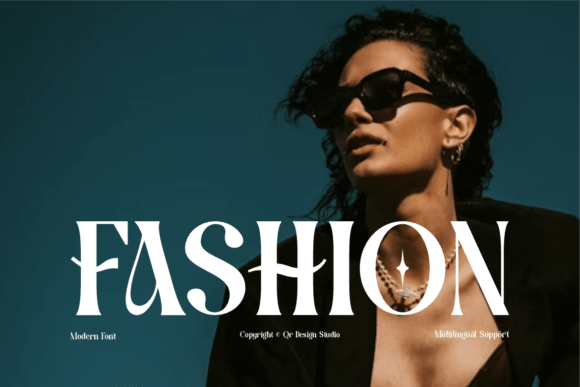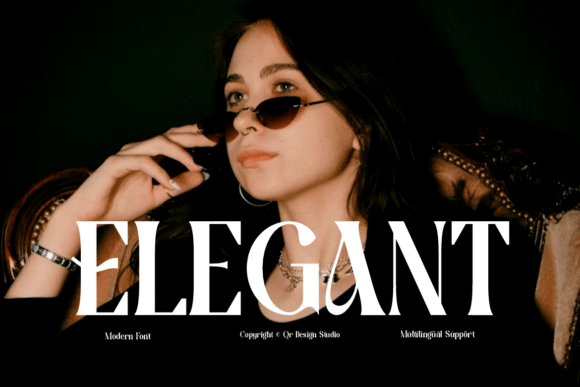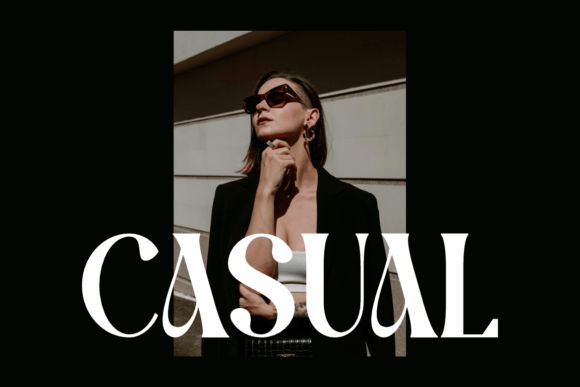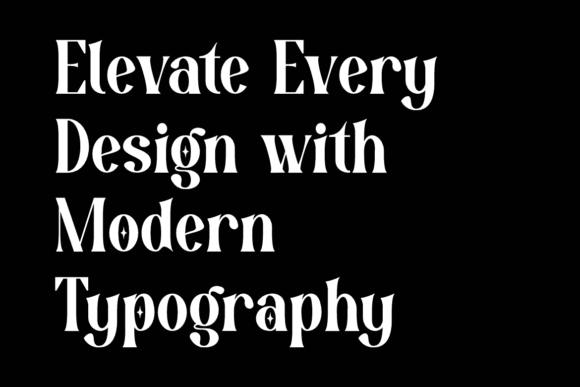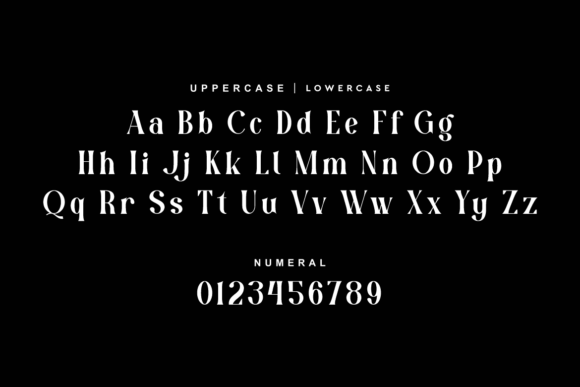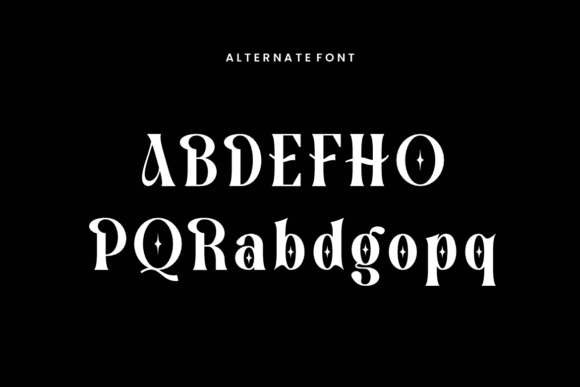
Introduction to Ostir Agobelt Font
Command attention with the sophisticated elegance of Ostir Agobelt, a modern serif font.
This typeface features a captivating blend of high-contrast strokes and fluid, organic curves that radiate a sense of high-fashion editorial prestige Its unique โsparkleโ motifs integrated into the circular glyphs and rhythmic, elongated terminals provide a signature look for luxury branding, boutique cosmetic packaging, artisanal lifestyle magazines, and chic social media headers.
Key Features of Ostir Agobelt Font
Why Choose Ostir Agobelt Font?